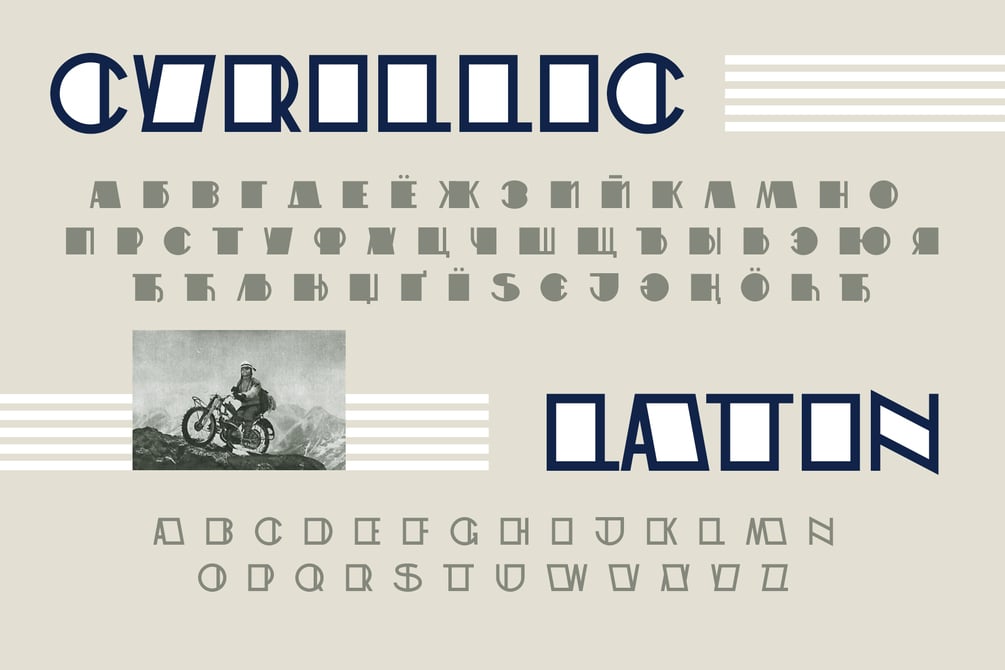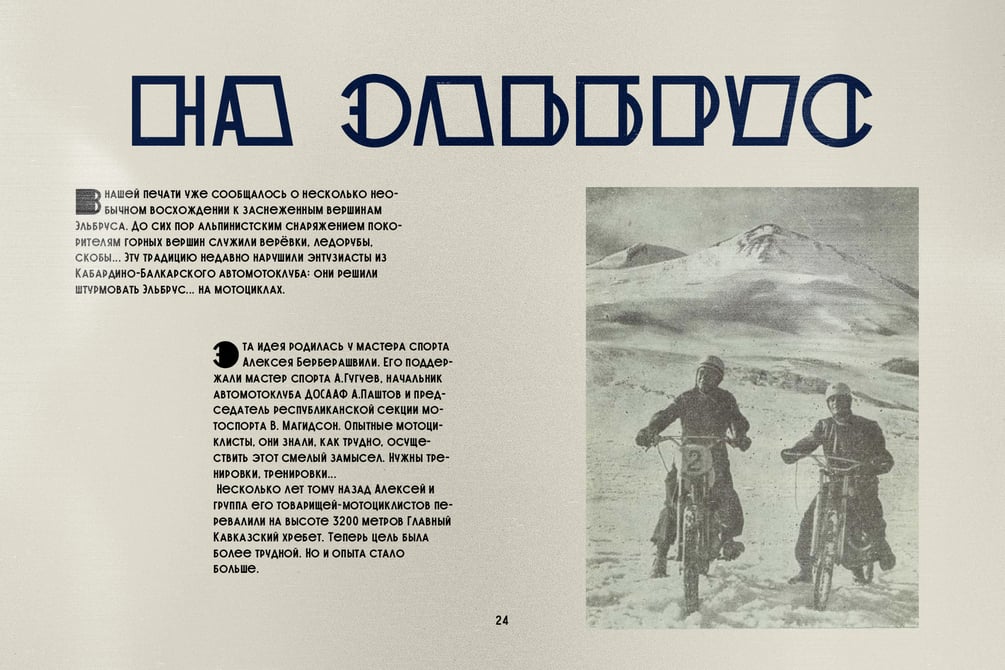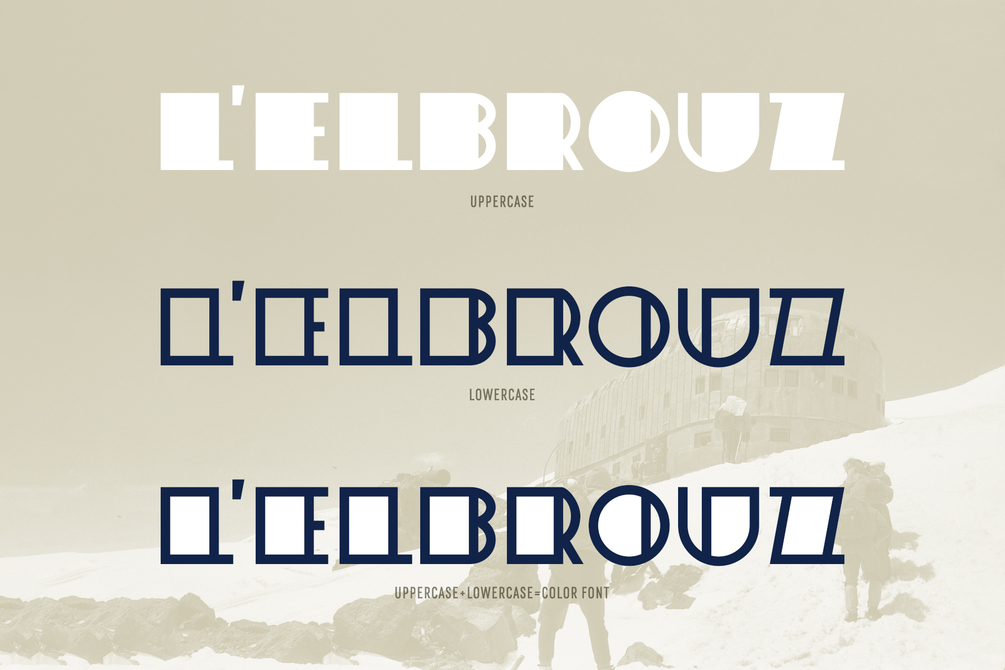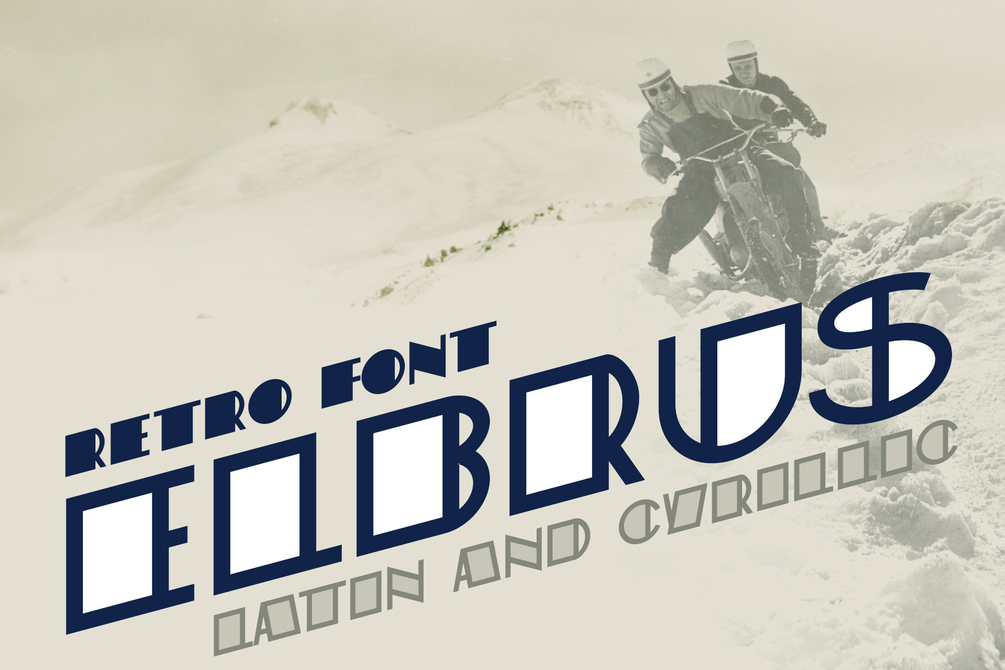
ST-Elbrus retro display font
ST-Elbrus is the replica of Soviet magazine lettering. This retro futuristic font is good for headlines, large-format print, branding, posters, fashion designs and logotypes. This is all caps font with two variations. English and Russian alphabets. Letters only.